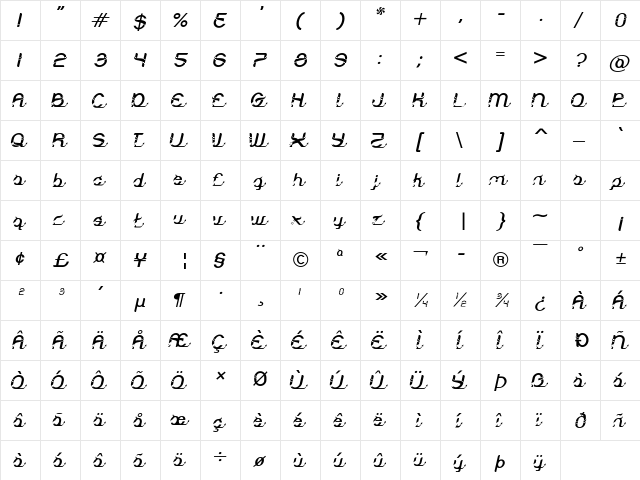
Morgana Italic
| Foundry | Emanes Dsign |
| Designer | emanes dsign |
Design Context for Morgana Typeface
Morgana is a composed and adaptable typeface that performs quietly and consistently across a wide range of design contexts. The dynamic lean of this cut emphasises speed and emphasis in any layout.